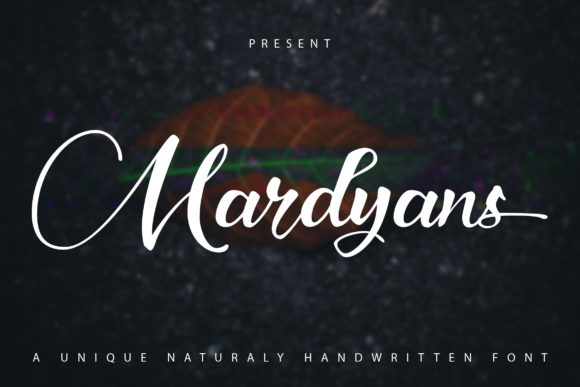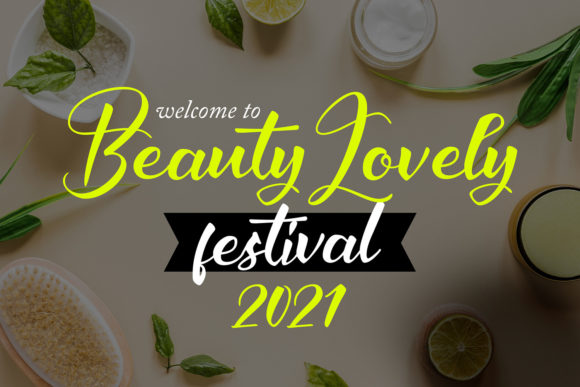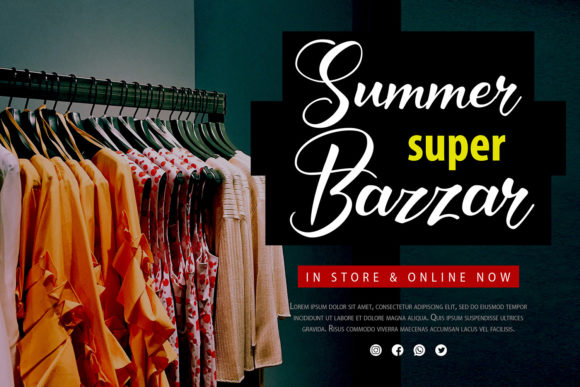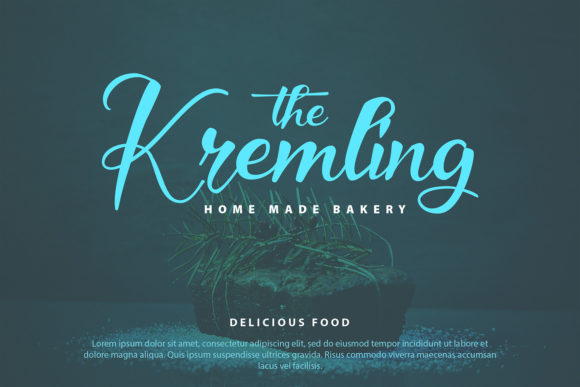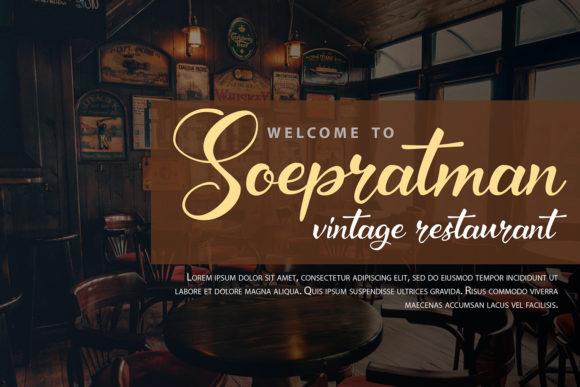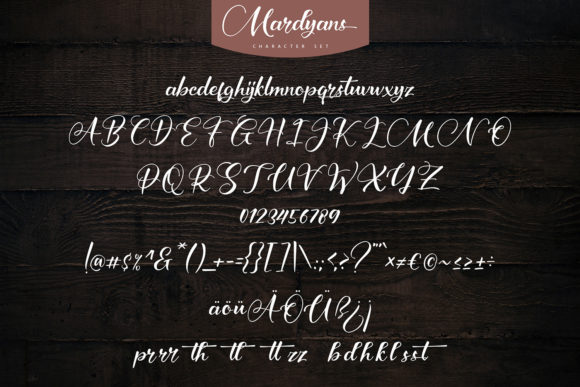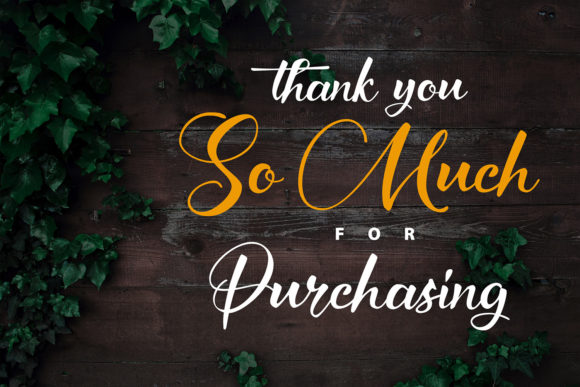
Mardyans Font
About Mardyans Font
Mardyans is a captivating calligraphy typeface that exudes romance and sweetness. With its graceful letterforms and characters that dance along the baseline, this font adds a touch of elegance and playfulness to your designs. Its casual yet refined style makes it a versatile choice for a wide range of purposes.
One of the notable features of Mardyans is its ability to bring a sense of charm and sophistication to your branding projects. Whether you’re designing a logo for a boutique, a wedding invitation, or creating headings for your website, Mardyans adds a unique and personalized touch. Its flowing letterforms and intricate details create a sense of craftsmanship and attention to detail, making your designs stand out.
Mardyans is also well-suited for various printed materials. From t-shirts and letterhead to signage, labels, and posters, this font can effortlessly enhance the visual appeal of your creations. Its organic and fluid strokes give a sense of movement and vitality, making your text visually captivating.
Furthermore, Mardyans is perfect for adding a touch of elegance to editorial designs. Whether it’s news articles, magazine layouts, or book covers, this calligraphy typeface brings a sense of sophistication and artistry. Its versatility allows it to adapt to different design styles and themes, complementing the overall aesthetic and creating a harmonious visual experience.
The possibilities with Mardyans are virtually endless. Its versatility extends to various applications, such as badges, social media graphics, and more. You can explore its potential in bringing a touch of romance and style to any project you embark on.
In summary, Mardyans is a romantic and sweet calligraphy typeface that offers a casual yet elegant touch. Its ability to bring charm and sophistication to various design projects, including logos, wedding invitations, headings, t-shirts, and more, makes it a valuable asset in your font collection. Embrace the grace and playfulness of Mardyans and let it elevate the beauty of your designs.